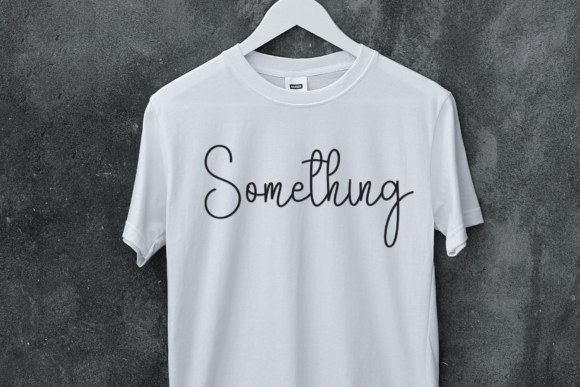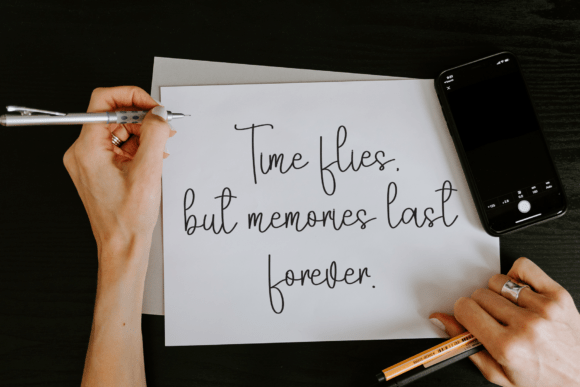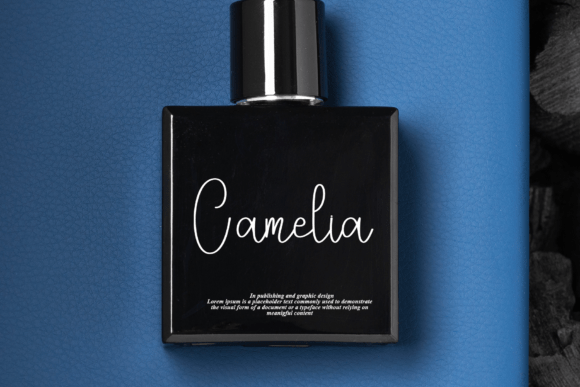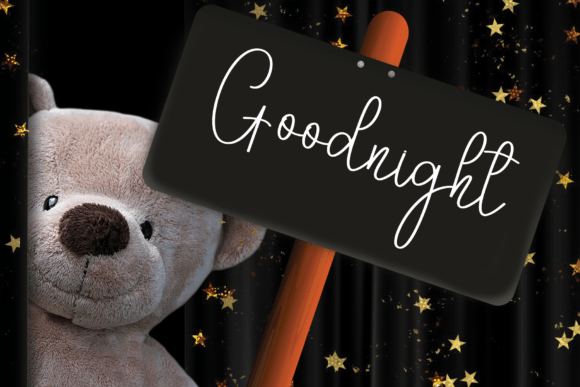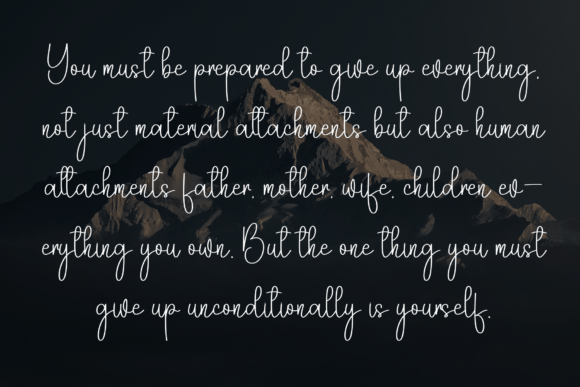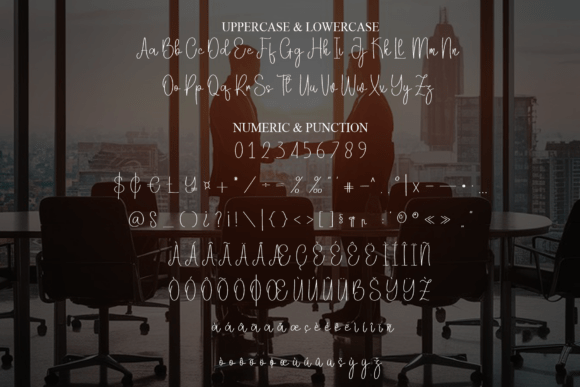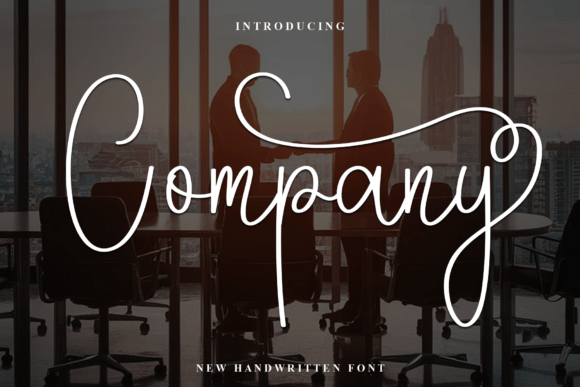
Introducing Company Font: Elevate Your Designs with Artistic Flair and Contemporary Elegance
In the world of typography, fonts play a crucial role in conveying the tone and personality of a brand. For designers and crafters seeking to add a touch of sophistication and creativity to their work, the Company font is an exceptional choice. This stylish script font is designed to exude artistic flair and contemporary elegance, making it perfect for a wide range of design applications.
The Unique Characteristics of Company Font
Company font is distinguished by its fluid brush strokes, dynamic curves, and expressive letterforms. These features combine to capture the essence of hand-painted calligraphy with a modern twist, giving the font a unique and captivating appearance. The fluidity of the brush strokes adds a sense of movement and energy to the text, while the dynamic curves and expressive letterforms bring a level of sophistication and elegance.
Applications for Company Font
The versatility of Company font makes it suitable for a variety of design projects. Some of the ideal applications for this font include:
- Logos: Create a lasting impression with a custom logo that showcases your brand’s personality and style.
- Invitations: Add a touch of elegance and sophistication to your invitations, making them perfect for weddings, parties, and other special events.
- Packaging: Elevate your product packaging with a font that exudes luxury and refinement.
- Social Media Graphics: Make your social media posts stand out with eye-catching graphics that feature the Company font.
The Benefits of Using Company Font
Company font offers several benefits to designers and crafters, including:
- Visual Impact: The font’s unique characteristics and expressive letterforms make it a great choice for designs that require a strong visual impact.
- Versatility: Company font can be used for a wide range of design applications, from logos and invitations to packaging and social media graphics.
- Creative Freedom: With its natural flow and vibrant character, this font gives designers the freedom to experiment and push the boundaries of their creativity.
Tips for Using Company Font Effectively
To get the most out of Company font, consider the following tips:
- Use it sparingly: While Company font is perfect for headlines and titles, it’s best to use it sparingly in body text to maintain readability.
- Experiment with colors: The font’s expressive letterforms and fluid brush strokes make it a great choice for designs that feature bold, vibrant colors.
- Pair it with complementary fonts: Combine Company font with complementary fonts to create a visually appealing contrast and add depth to your design.
Company font is a stylish script font that offers a unique blend of artistic flair and contemporary elegance. Its fluid brush strokes, dynamic curves, and expressive letterforms make it perfect for designers and crafters seeking to add a touch of sophistication and creativity to their work. With its versatility, visual impact, and creative freedom, Company font is an exceptional choice for a wide range of design applications.